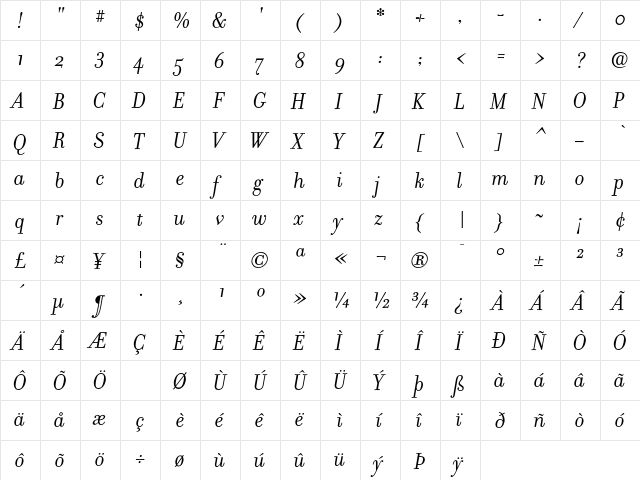
Filosofia RomanItalic
Design Context for Filosofia Typeface
Filosofia is a composed and adaptable typeface that performs quietly and consistently across a wide range of design contexts. Its italic angle brings a sense of urgency and motion to the letterforms.
Pro Tip: Try Filosofia for annotation and caption copy alongside an upright companion — the contrast in angle creates a dynamic but ordered typographic system.